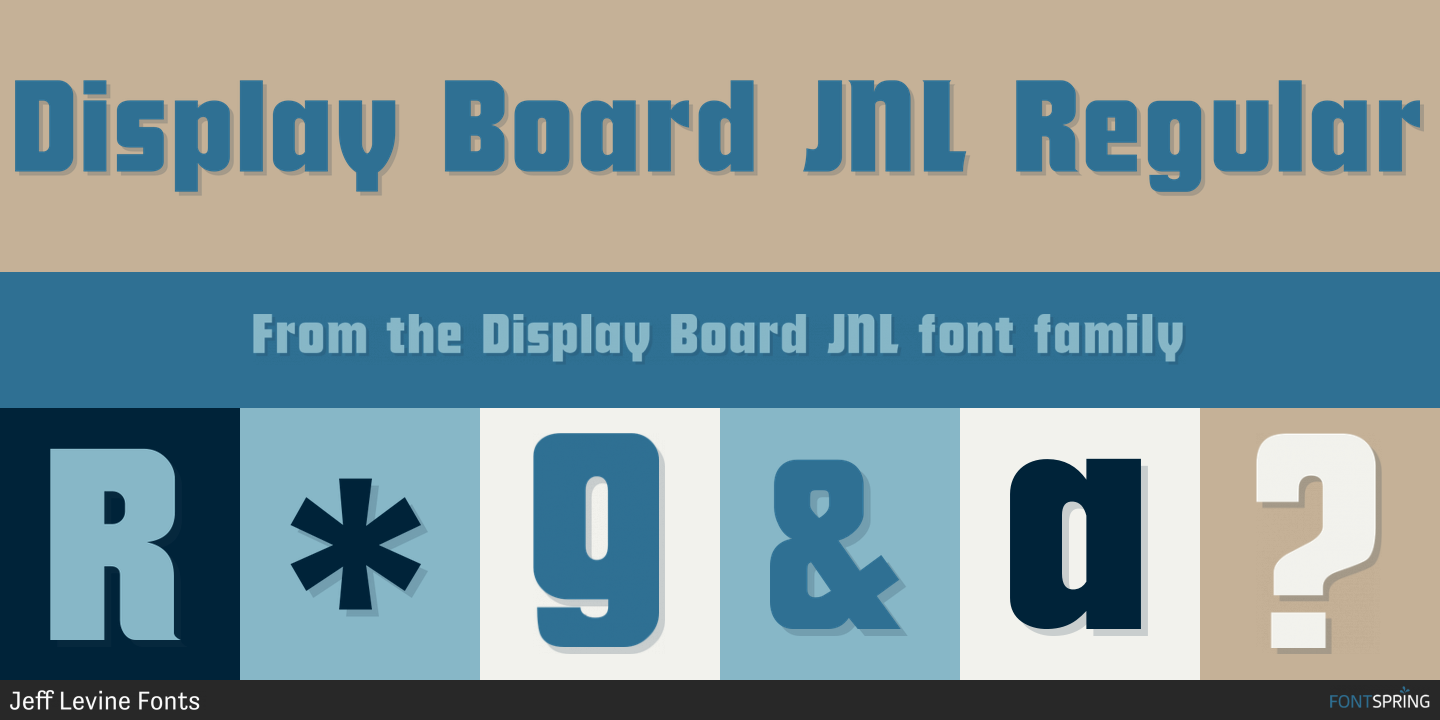
Display Board Jnl Font . Display board jnl is based on futura display, which was designed in 1932 by paul renner as an extension of. designed by jeff levine, display board jnl is a. display board jnl font: display board jnl is based on futura display, which was designed in 1932 by paul renner as an extension of his. thousands of designers (famous or not) use the image font detection system to find a font or similar free fonts from an image. display board jnl is based on futura display, which was designed in 1932 by paul renner as an extension of his original (1927) futura family of typefaces. display board jnl font: Display board jnl is based on futura display, which was designed in 1932 by paul renner as an extension of.
display board jnl font: display board jnl is based on futura display, which was designed in 1932 by paul renner as an extension of his. Display board jnl is based on futura display, which was designed in 1932 by paul renner as an extension of. display board jnl is based on futura display, which was designed in 1932 by paul renner as an extension of his original (1927) futura family of typefaces. display board jnl font: thousands of designers (famous or not) use the image font detection system to find a font or similar free fonts from an image. designed by jeff levine, display board jnl is a. Display board jnl is based on futura display, which was designed in 1932 by paul renner as an extension of.